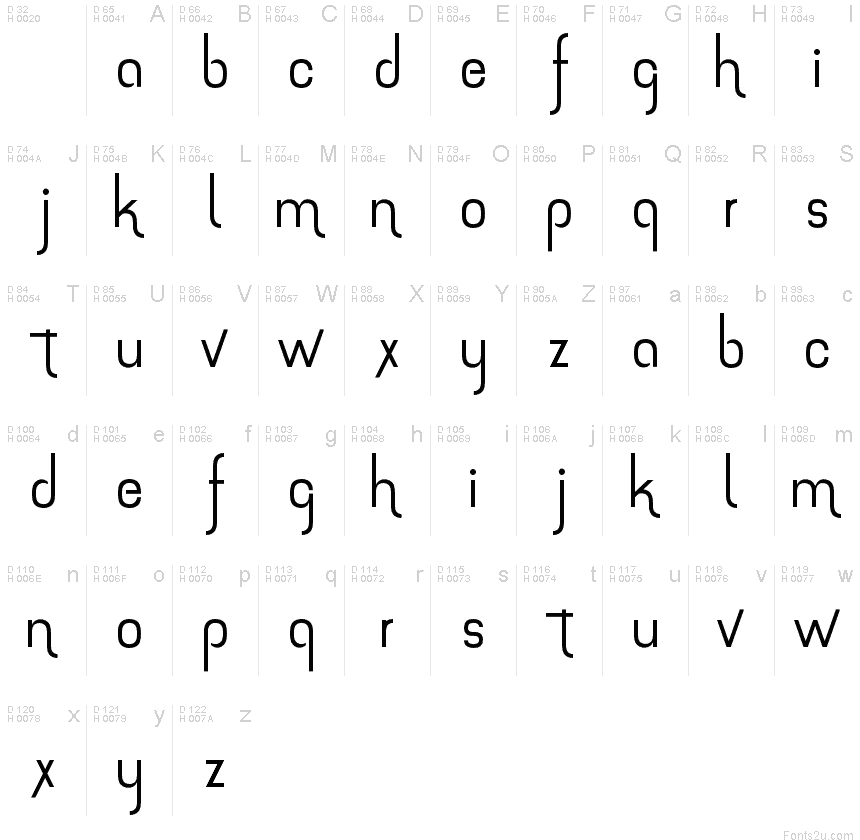
The Amazing Grace is a free curly display font with exceptionally tall loops and a clean monoline build. Its rounded letters stretch above and below the main line for an elegant, eccentric silhouette.
Fashion branding and music posters gain the same elongated sweep, though one feels refined and the other more theatrical. It also suits fragrance packaging and event graphics. In editorial design, the towering curves can turn a magazine title or feature opener into editorial illustration.
the amazing grace
the amazing grace is designed for 26 letter only